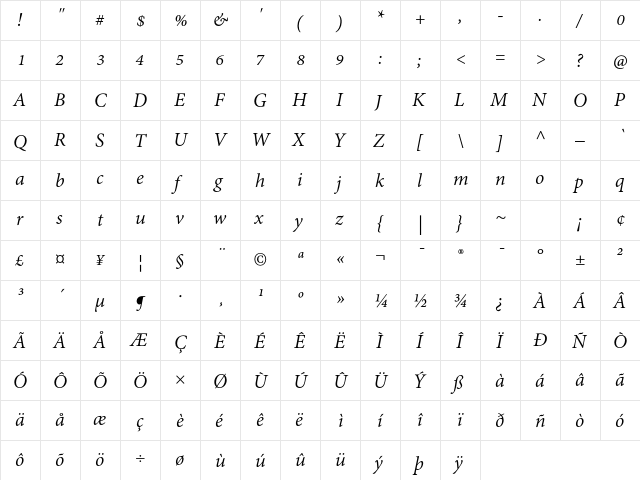
Adobe Thai Italic
| Foundry | Tiro Typeworks for Adobe Systems Incorporated. |
| Designer | Fiona Ross, John Hudson and Tim Holloway (Thai) and Robert Slimbach (Latin) |
Design Context for Adobe Thai Typeface
Adobe Thai is a composed and adaptable typeface that performs quietly and consistently across a wide range of design contexts. Its italic angle brings a sense of urgency and motion to the letterforms.
Pro Tip: Use Adobe Thai for emphasis, pull quotes, and subheadings where its slanted energy can add rhythm to the layout.